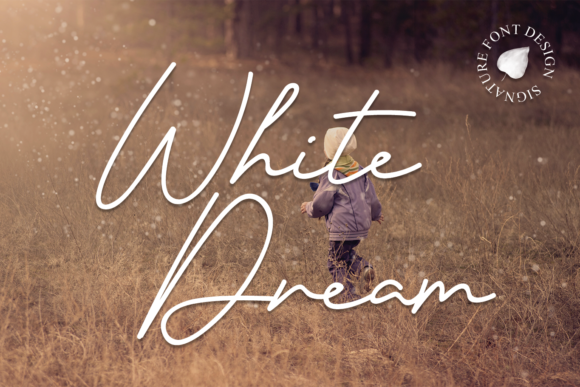
Introducing White Dream Font: Elevate Your Creative Projects with Elegance
The world of typography is vast and diverse, offering a multitude of fonts that can make or break the visual appeal of a creative project. Among these, the White Dream Font stands out as a beacon of elegance and sophistication. This exquisite handwritten font is masterfully crafted to capture the hearts of designers and artists alike, making it a true favorite in the realm of typography.
The Essence of White Dream Font
White Dream Font is not just another addition to the plethora of fonts available; it is a masterpiece that brings a touch of elegance to any creative project it is used in. Its contemporary and fresh appeal ensures that your work does not just blend in but stands out in a crowd. Whether you’re working on a branding project, a website design, or even a personal art piece, White Dream Font can elevate your work to new heights.
Key Features of White Dream Font
- Handwritten Elegance: White Dream Font boasts a beautiful, handwritten style that adds a personal touch to any project.
- Contemporary Appeal: Its modern design ensures that your work looks fresh and up-to-date.
- Versatility: Suitable for a wide range of creative projects, from professional branding to personal art pieces.
- Ease of Use: Designed to be user-friendly, making it easy to incorporate into your projects.
Why Choose White Dream Font?
In a world where first impressions matter, the font you choose for your project can significantly influence how your work is perceived. Here are a few reasons why White Dream Font should be your go-to choice:
- Unique Appeal: Its distinctive style ensures your work stands out from the crowd.
- Elegance and Sophistication: Adds a level of professionalism and refinement to your projects.
- Emotional Connection: The personal touch of handwritten fonts can create a stronger emotional connection with your audience.
- Adaptability: Works well across various mediums, from digital platforms to print materials.
Using White Dream Font in Your Projects
Incorporating White Dream Font into your creative projects is straightforward. Here are some tips to make the most out of this exquisite font:
- Pair it Wisely: Combine White Dream Font with complementary fonts to create visual interest.
- Consider the Context: Ensure that the font aligns with the tone and theme of your project.
- Play with Sizes: Experiment with different font sizes to create a hierarchy of information.
- Customization: Don’t hesitate to tweak the font to fit your project’s unique needs.
The Impact of White Dream Font on Your Brand
The font you choose can have a profound impact on your brand’s identity. White Dream Font, with its elegant and contemporary design, can help you build a brand image that is both sophisticated and approachable. It’s an opportunity to tell your brand’s story in a unique and compelling way.
Creating a Lasting Impression
Your choice of font is a reflection of your brand’s personality. With White Dream Font, you can create a lasting impression on your audience, making your brand memorable and distinctive.
White Dream Font is more than just a font; it’s a tool that can elevate your creative projects to new heights of elegance and sophistication. Its contemporary design, versatility, and emotional appeal make it an excellent choice for anyone looking to add a personal touch to their work. Whether you’re a professional designer or an artist, White Dream Font is sure to become a favorite in your collection.
In the world of typography, finding a font that truly speaks to your creative vision can be challenging. With White Dream Font, you’re not just finding a font; you’re discovering a partner that will help you bring your vision to life with elegance and style.